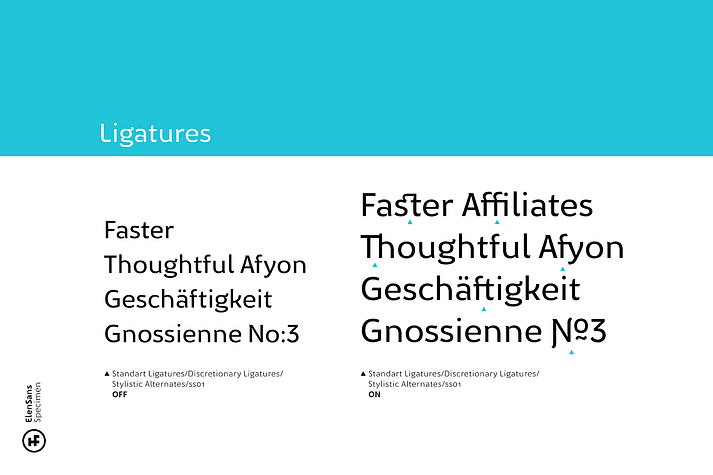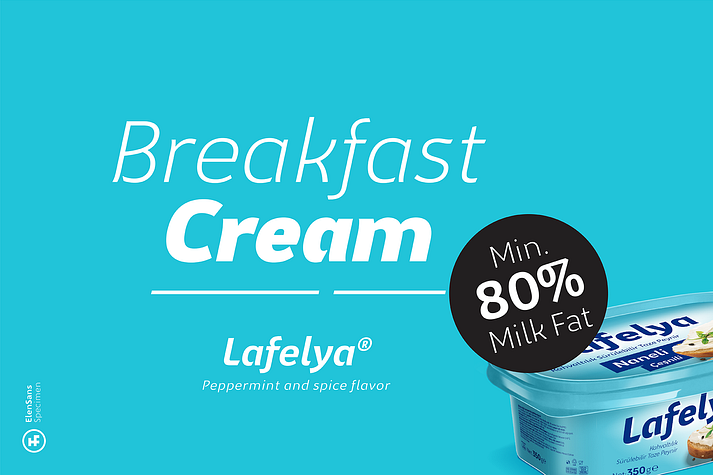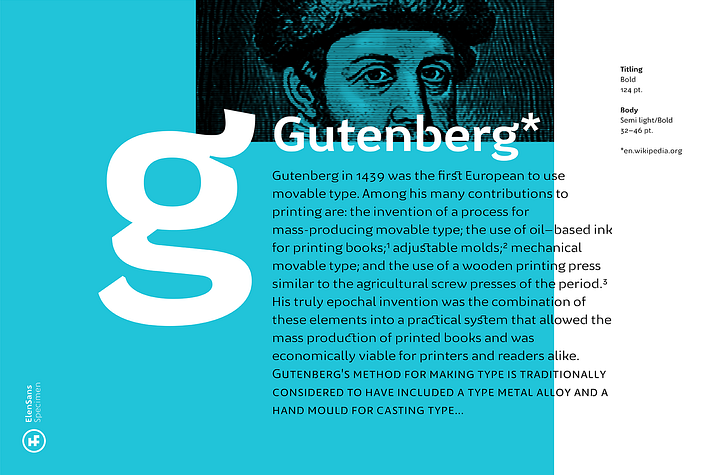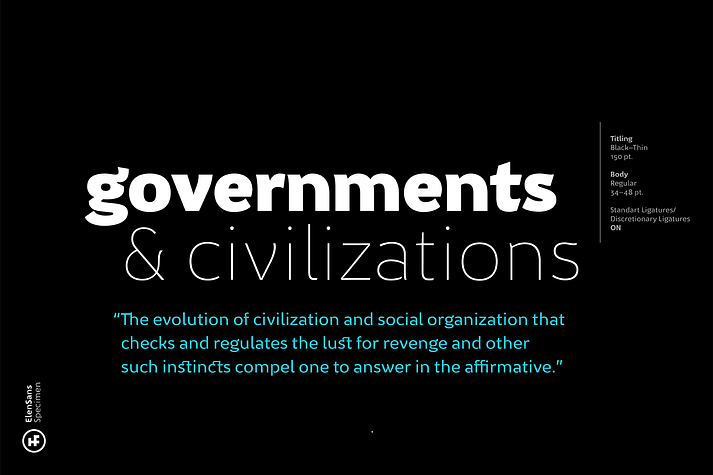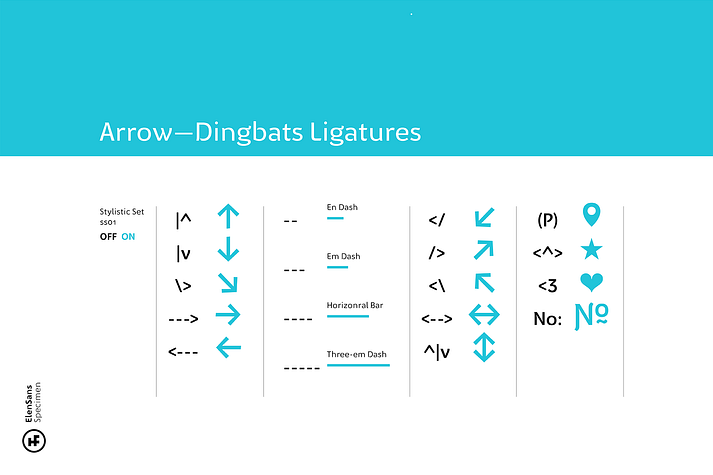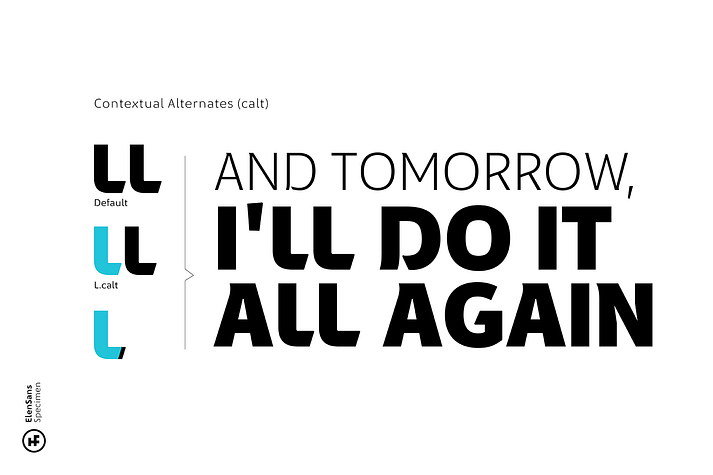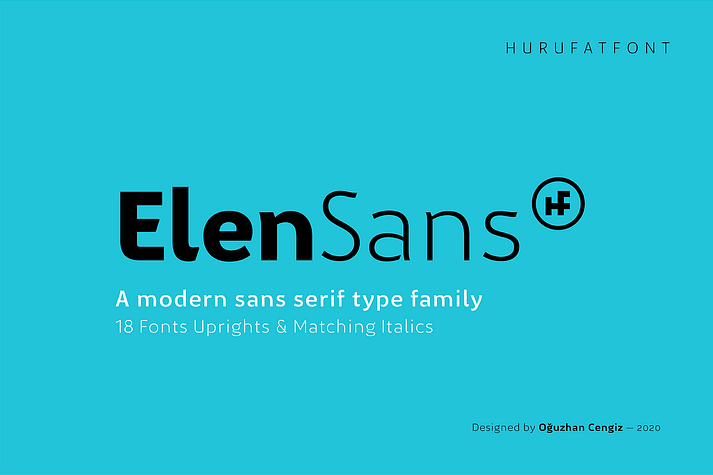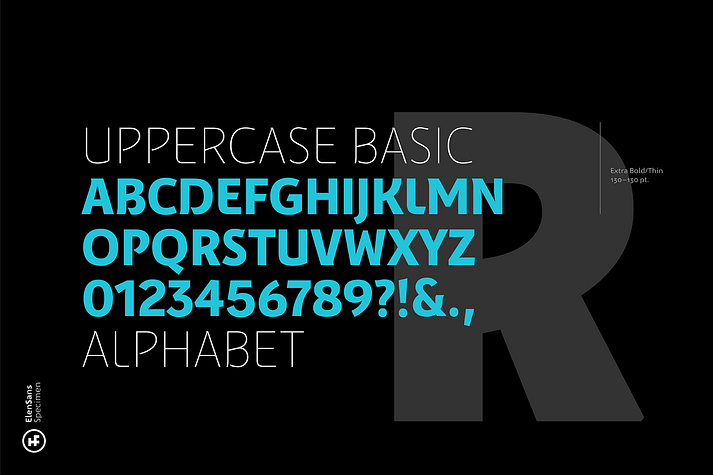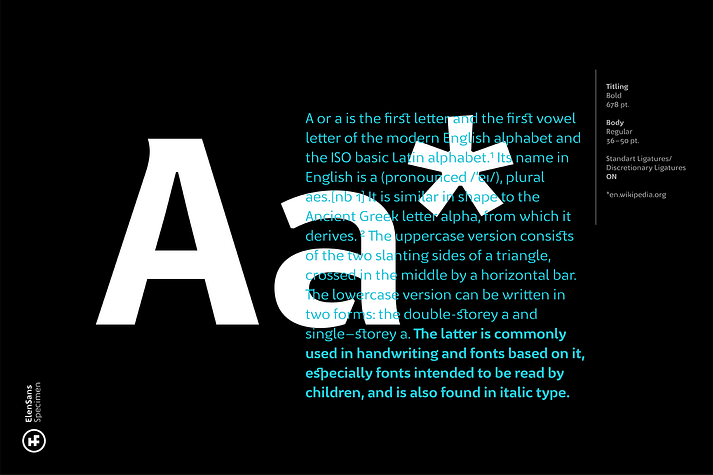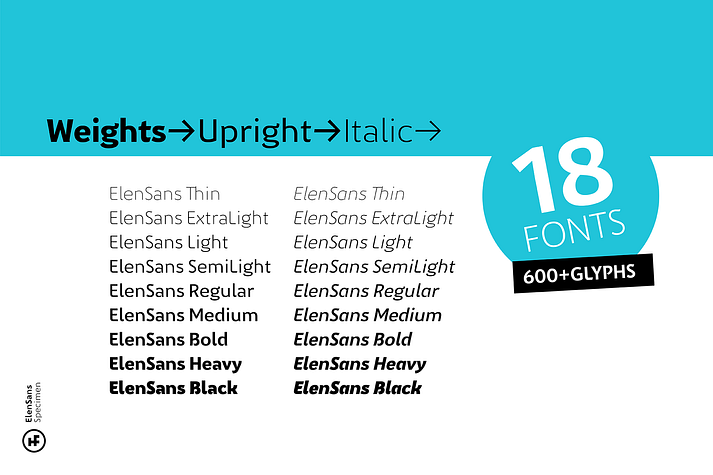
Elen Sans
Elen Sans is a display sans and sans serif font family. This typeface has eighteen styles and was published by Hurufatfont Type Foundry.
The first design of Elensans consisted of 4 styles that are including two weights and their italics which I designed in my student years in 2002. It was designed with a little Art Nouveau style touch with inspired by classical geometric based fonts such as Friz Quadrata and Eras.
It was updated with according to the orientations of the day in 2012 and eventually it took its final form with actual touches in 2020.
The family has 18 weights, ranging from Thin to Black in normal styles and including their italics. It is ideally suited for advertising and packaging, editorial and publishing, logo, branding and creative industries, poster and billboards, small text, wayfinding and signage as well as web and screen design.